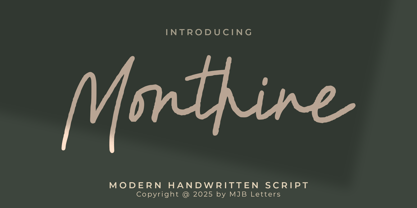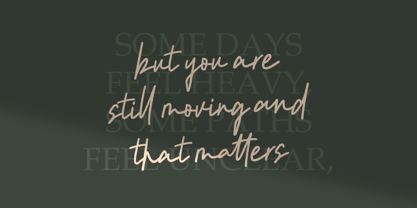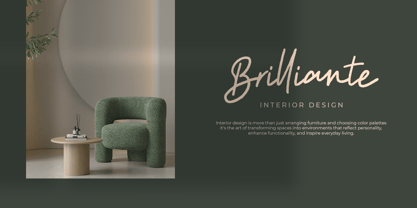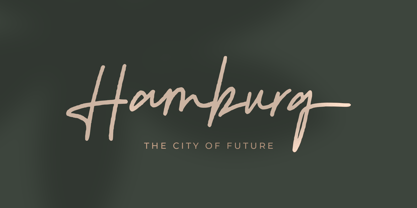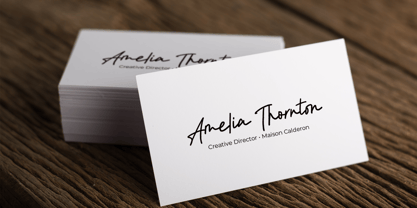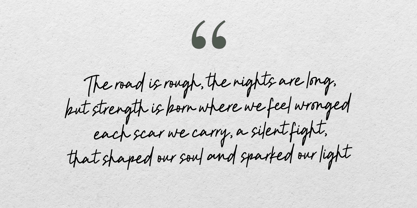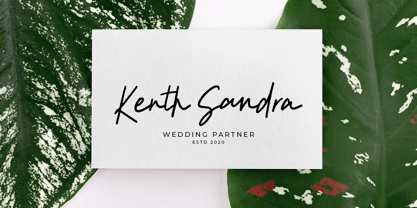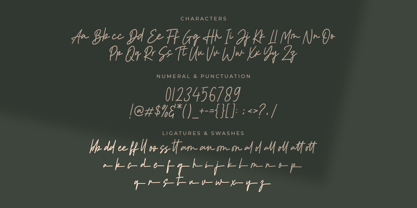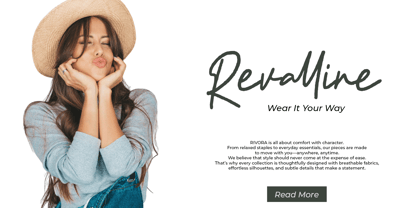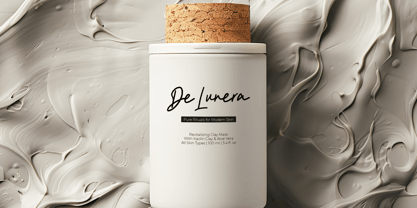
Monthine
by MJB Letters
The Monthine Font Family was designed by Muhammad Mujibulloh and published by MJB Letters. Monthine contains 1 styles. More about this family
Monthine is a modern handwritten script font with a casual and natural flow. Perfect for branding, logo design, packaging, social media, wedding invitations, and more. Its clean strokes and authentic handwritten feel will add an elegant touch to any project.
Font Features:
– Uppercase & lowercase letters
– Numbers & punctuation
– Ligatures
– Multilingual support
Designers: Muhammad Mujibulloh
Foundry: MJB Letters